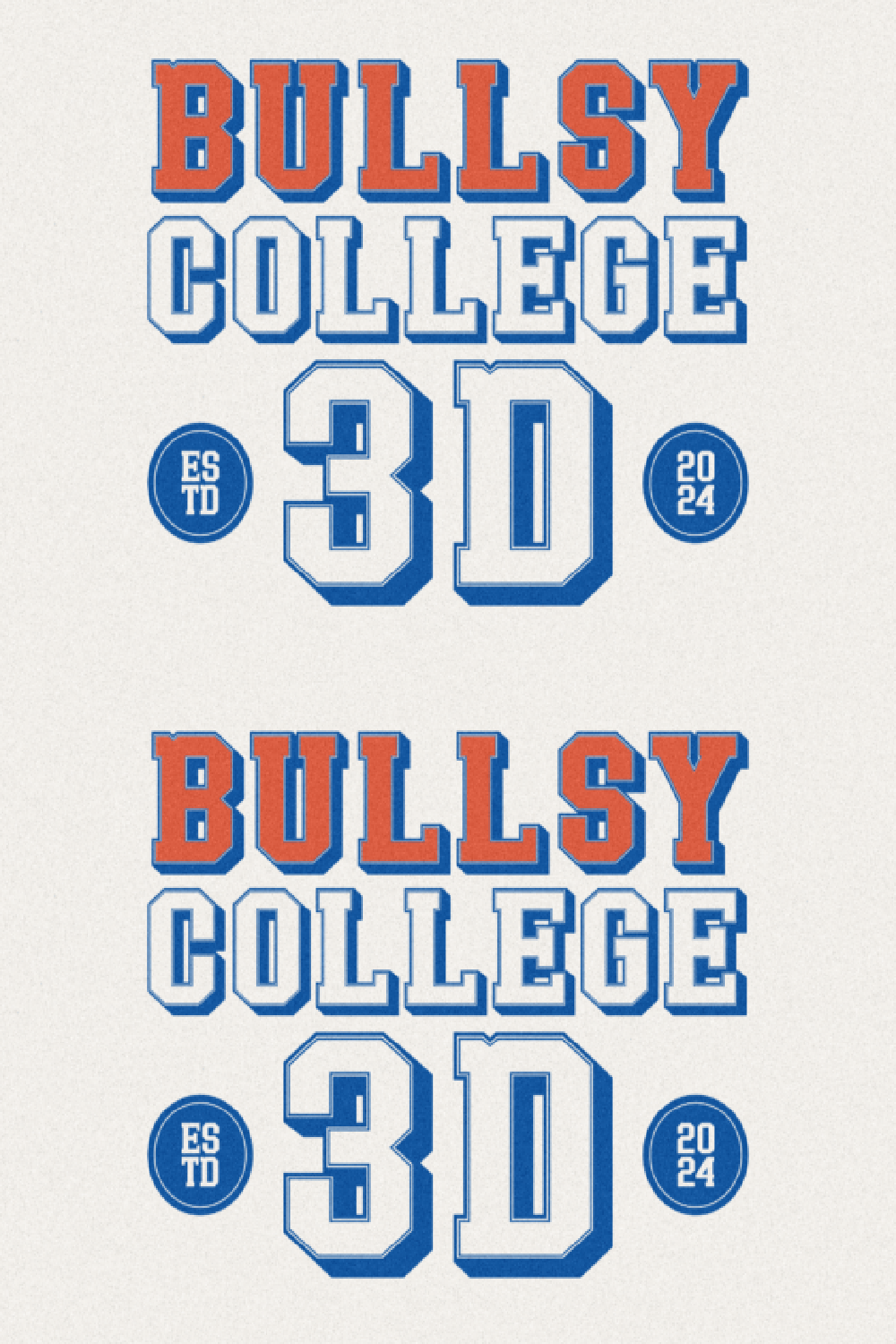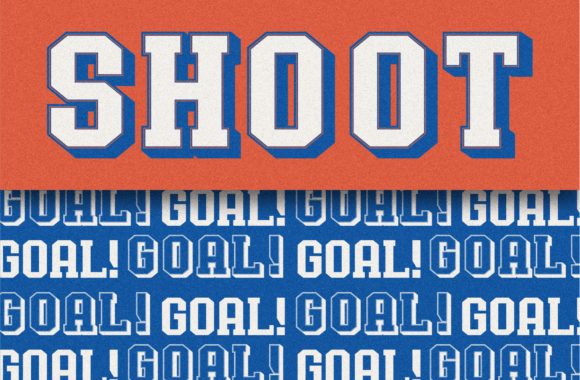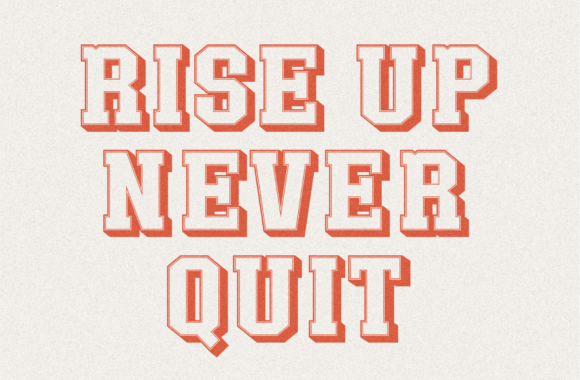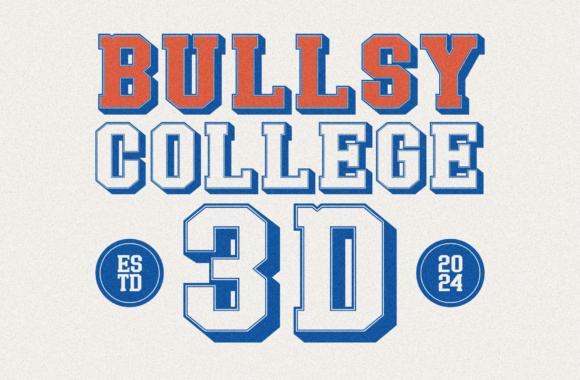
Bullsy College 3d Font
About the Bullsy College 3d Font
Step up your design game with Bullsy College 3d Font, a font that exudes confidence and style. Bullsy College 3D is the latest addition to the Bullsy College font family. This font features a 3D slab style, giving it a bold and dynamic visual impact that captures attention. Staying true to its roots, Bullsy College 3D belongs to the Old School category, evoking a classic and nostalgic feel reminiscent of vintage collegiate themes.
This font’s bold, three-dimensional structure makes it ideal for headlines, logos, and short, impactful text on posters or packaging. Its retro-collegiate style lends itself well to projects emphasizing nostalgia or a vintage aesthetic. Avoid using it for body text or long paragraphs; the strong three-dimensional effect reduces readability at smaller sizes.
For optimal visual harmony, pair Bullsy College 3D with a clean sans-serif like Futura or a more delicate script font such as Playfair Display for contrast. A geometric sans-serif could also work well to create a modern, yet nostalgic feel.
The overall personality of Bullsy College 3D is confident and bold, yet retains a playful, approachable quality thanks to its retro design. It is best suited for brands aiming for a vintage yet contemporary image, conveying a sense of tradition with a modern twist.